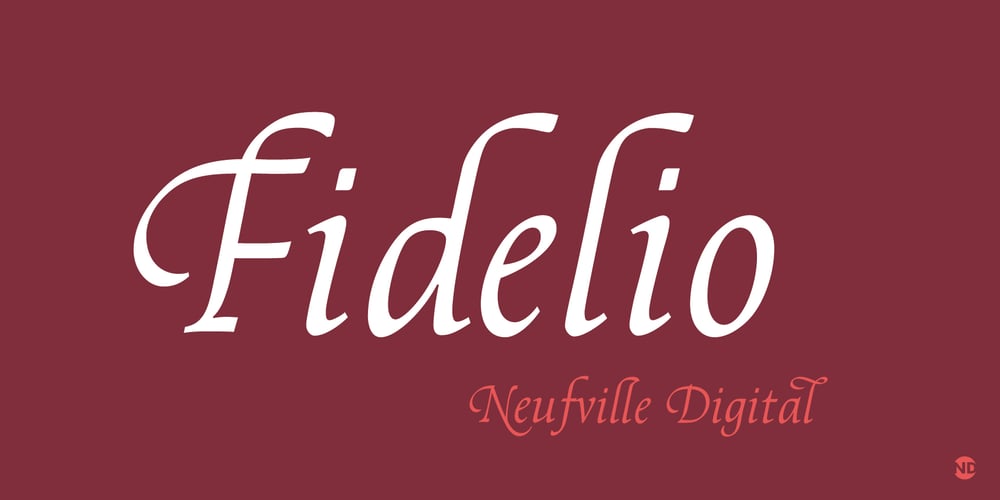
Fidelio ND Font Family was designed by José Mendoza y Almeida and published by Neufville Digital. Fidelio ND contains 1 styles and family package options. Fidelio is a chancery italic typeface with swashes, designed by José Mendoza y Almeida in 1980. Written with a broad nibbed pen, it has Caps with swash versions, Lower Case and a wide number of ligatures. It is one of the most complete and appealing calligraphies.Fidelio is a Trademark of BauerTypes SL